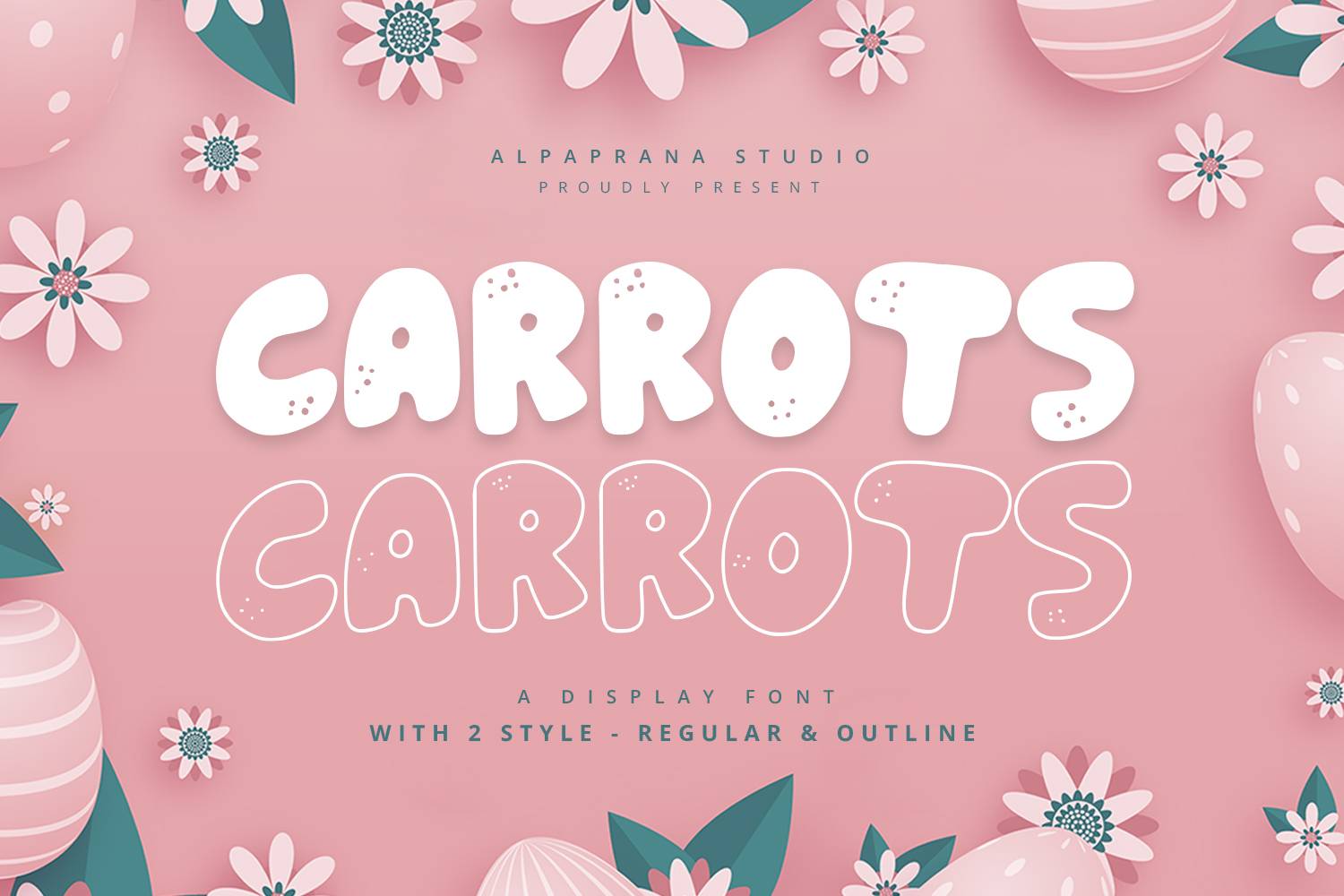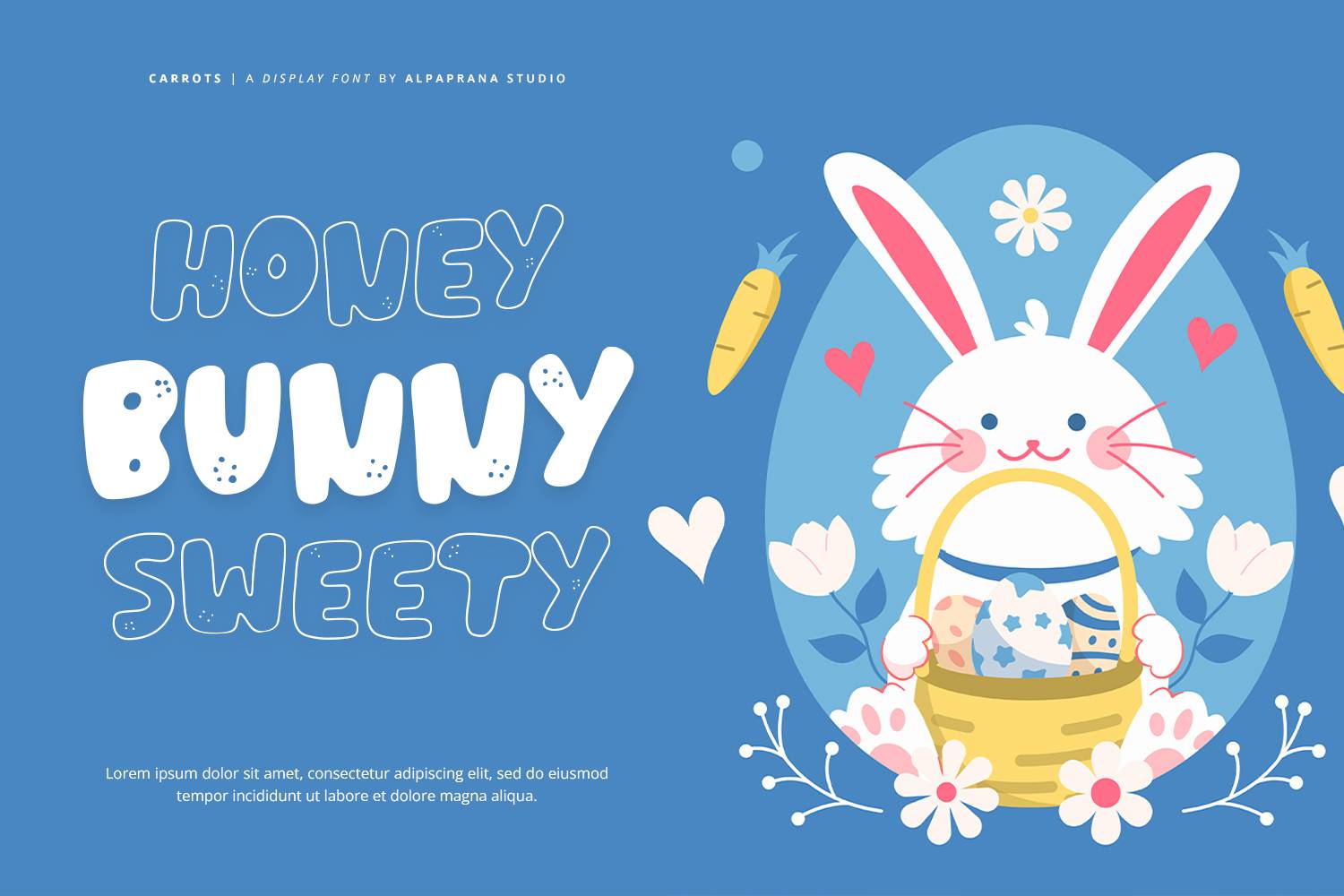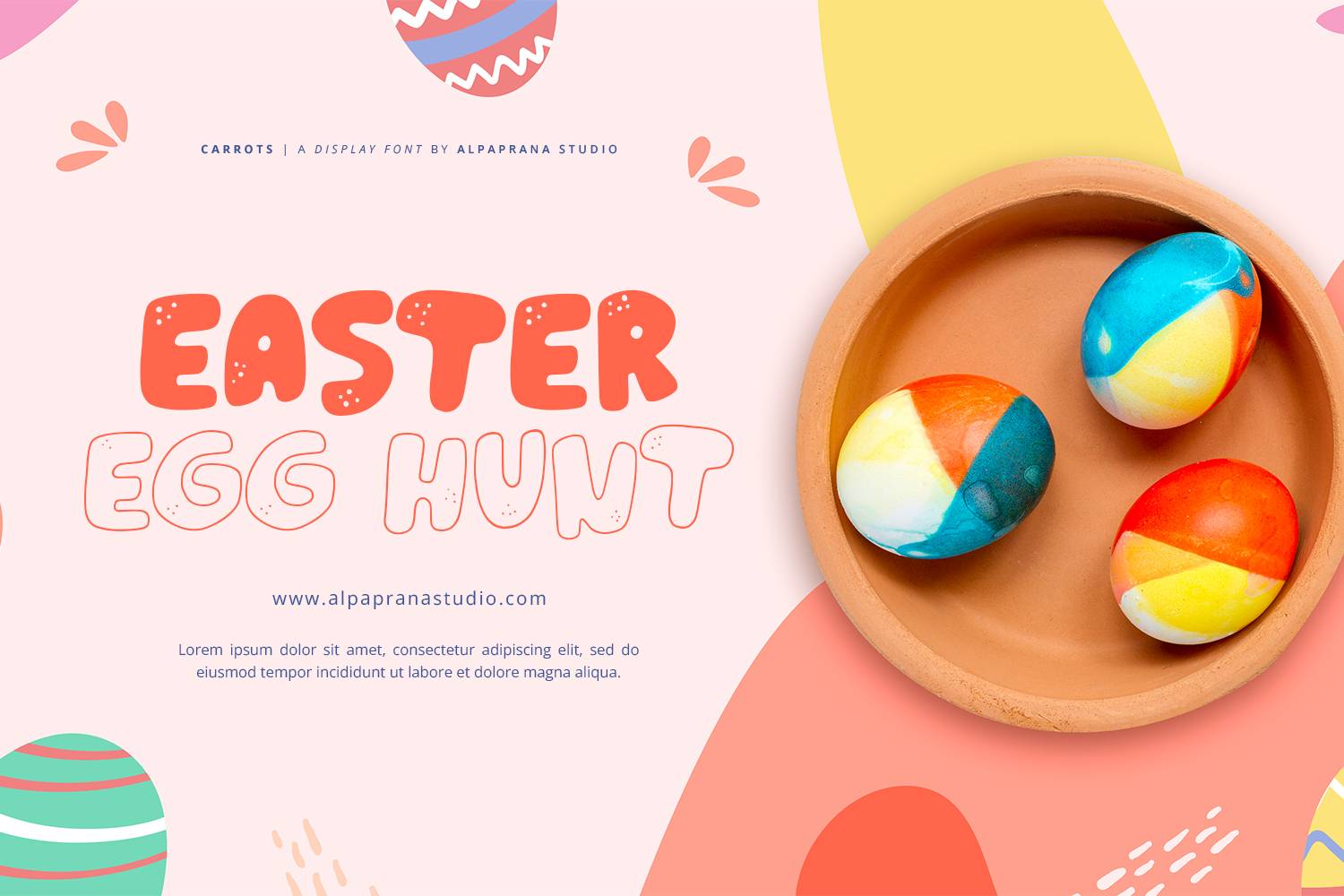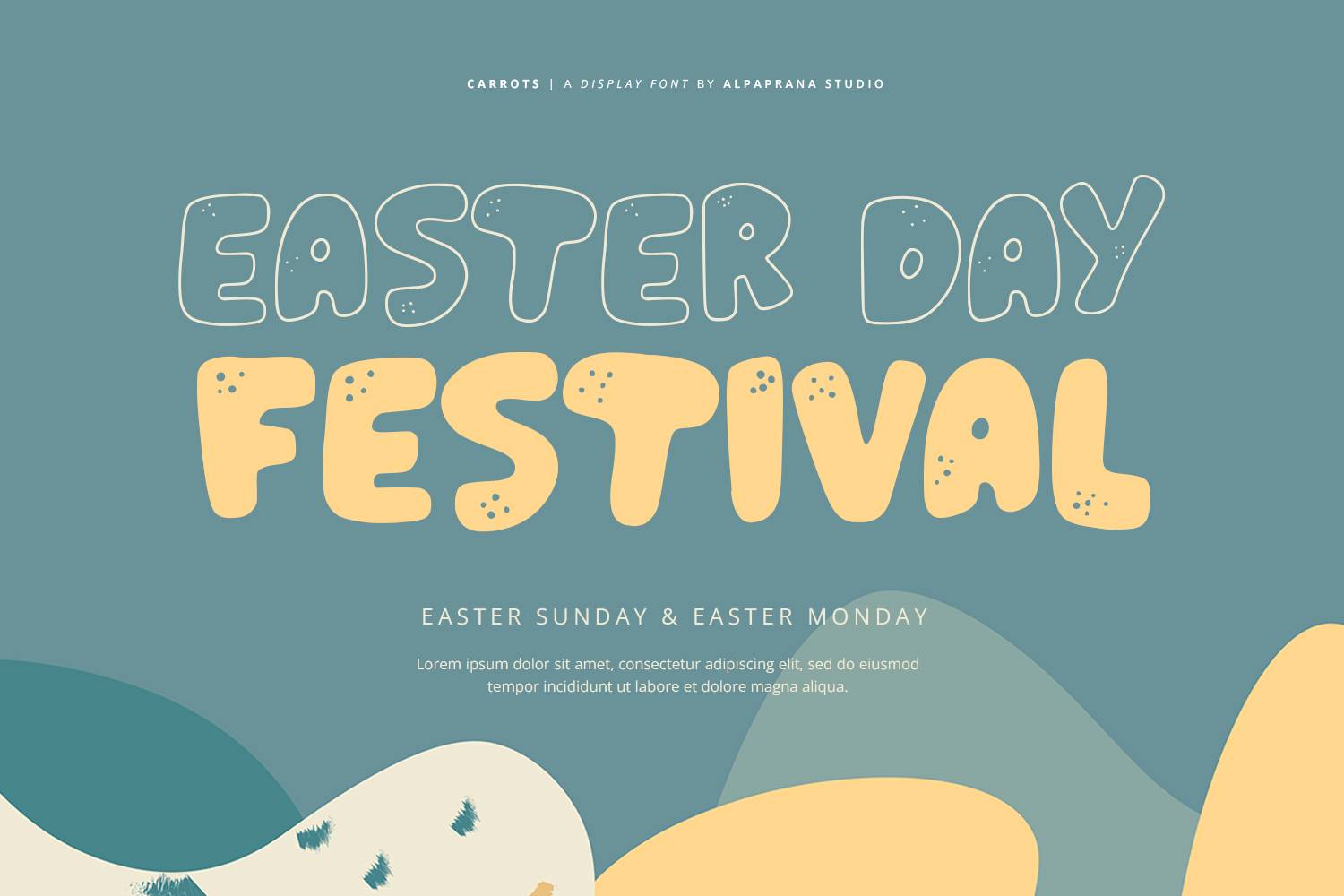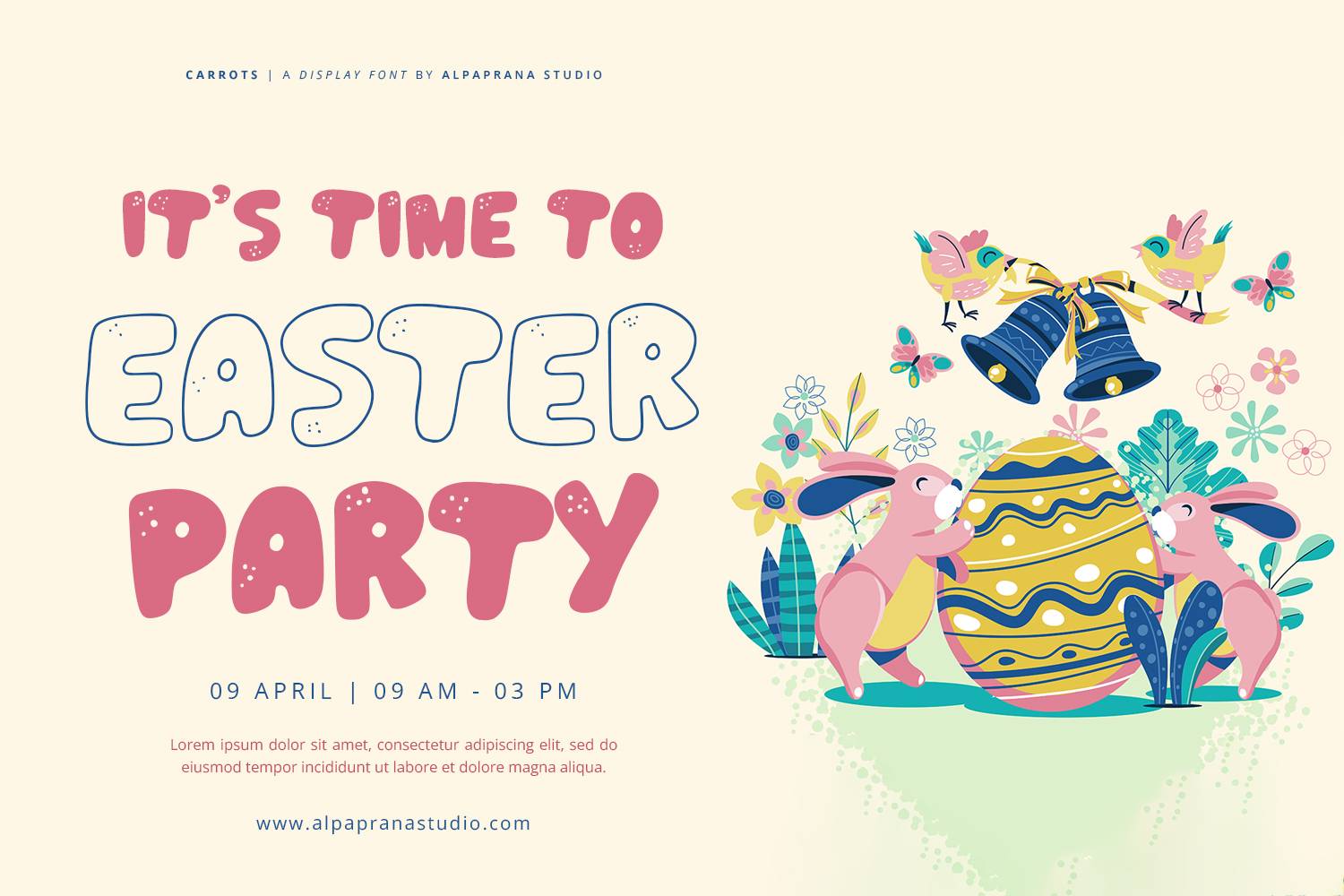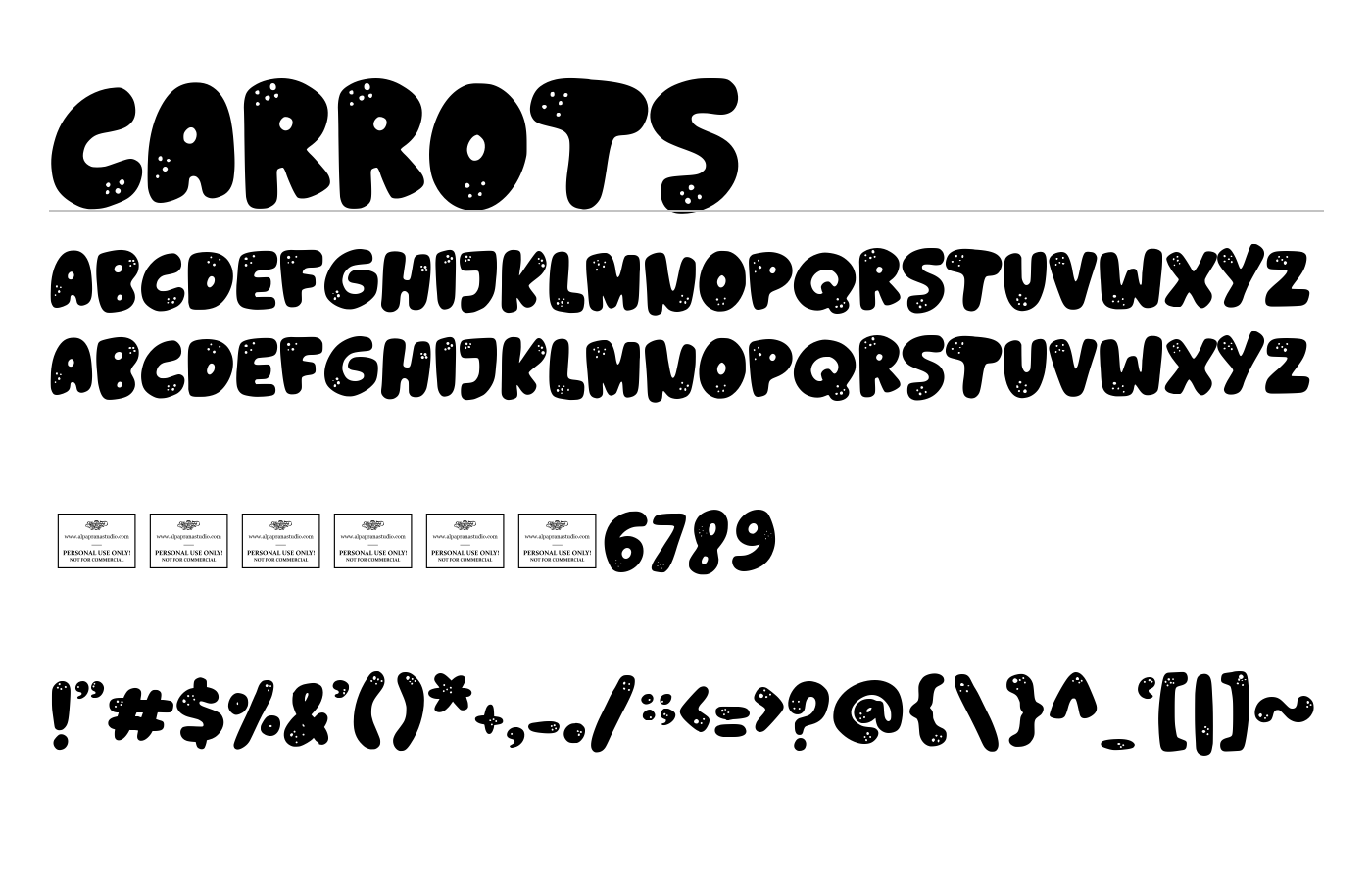
Carrots Font is a bold, playful display typeface with rounded, chunky letterforms that feel friendly and informal. Its irregular shapes and dotted texture add a whimsical, hand-drawn charm, making it perfect for creative projects aimed at children, casual branding, or fun event promotions. This font stands out best in headlines and logos where a lively, approachable vibe is desired.
Carrots Font
About Carrots Font